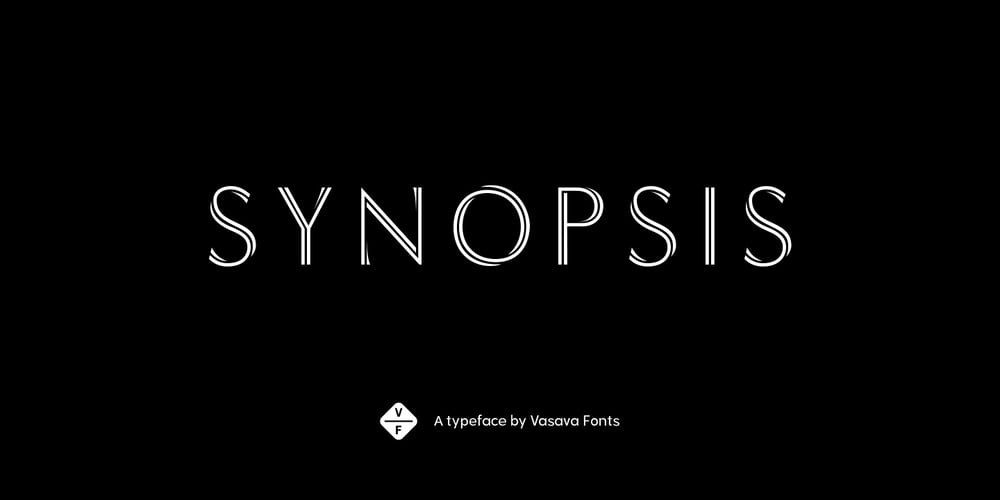
Synopsis
Synopsis font
Synopsis Font Family was designed by Bruno Sellés and published by Vasava Fonts. Synopsis contains 1 styles and family package options. Synopsis draws inspiration on the classic proportions and letterforms of old romans. In addition to this a new modern twist has been infused to it, giving it a dimensional double stroke or virtual inline that makes the round parts twist in and out. Specially gorgeous in big sizes it brings the best from the past merging it with new ideas.